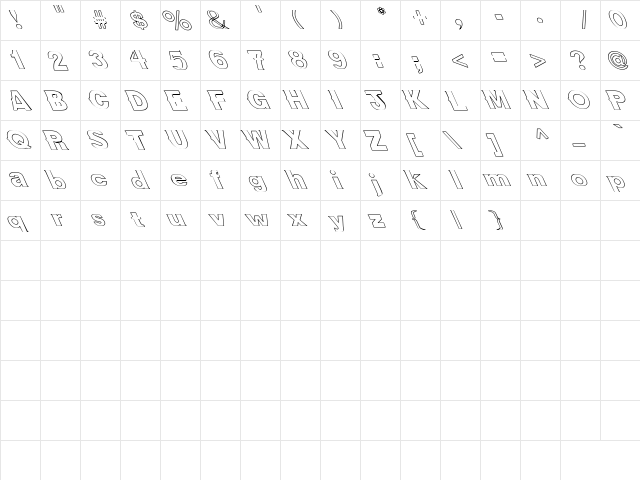
New Bold HollowLefti Regular
Design Context for New Bold HollowLefti Typeface
New Bold HollowLefti takes a measured approach to typography — its balanced proportions and neutral character make it a reliable workhorse for both digital and print work. Its bold stroke weight gives it real presence on the page.